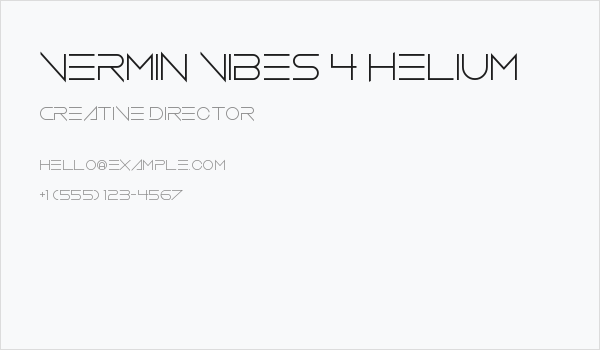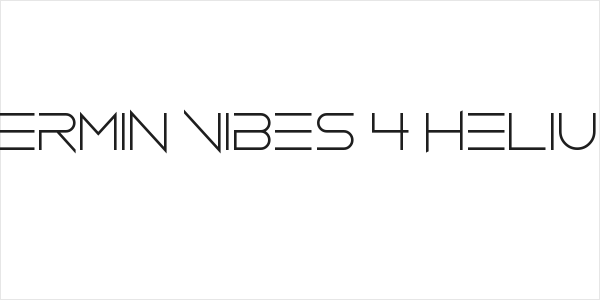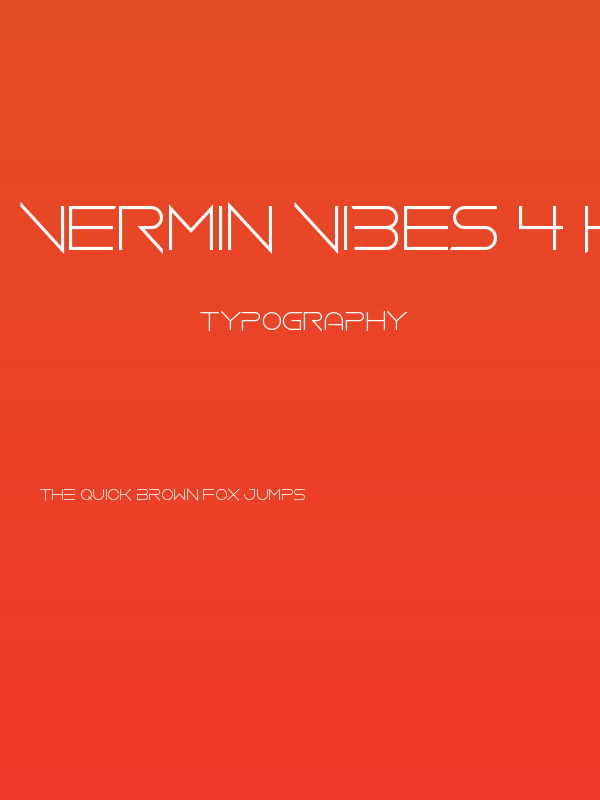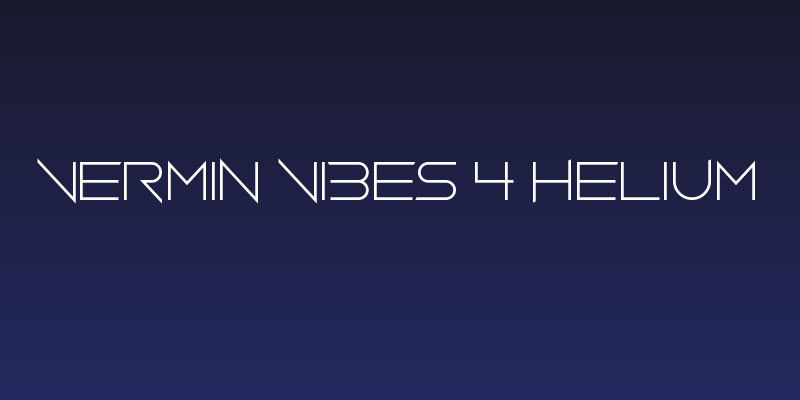
Vermin Vibes 4 Helium Font
Vermin Vibes 4 Helium Description
This font features a modern, geometric design with clean lines and a futuristic aesthetic. The characters are constructed with a consistent stroke width, giving it a uniform appearance. The uppercase letters are angular and sharp, while the lowercase letters maintain a similar geometric style. Numbers and special characters are designed to match the overall theme, making the font suitable for digital and tech-oriented projects. The spacing between characters is balanced, ensuring readability while maintaining its distinctive style.